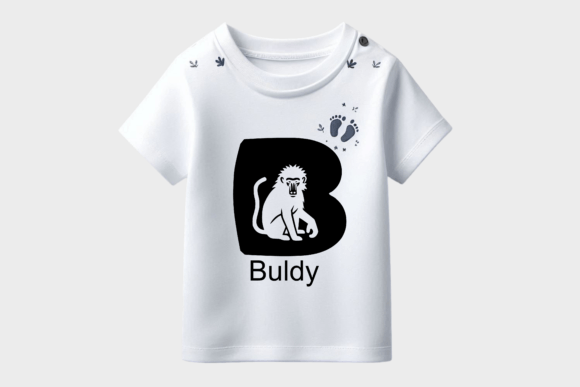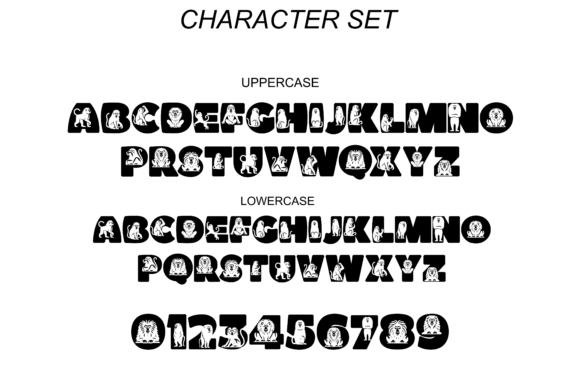
Baboon Font: Unleashing the Magic of Meticulously Carved Characters
Welcome to the enchanting realm of typography, where creativity knows no bounds. In this world, a unique gem has emerged to captivate designers and crafters alike – the Baboon Font. This extraordinary typographic treasure embodies the limitless possibilities of artistic expression, infusing projects with an irresistible allure. Get ready to immerse yourself in the dynamic energy of Baboon Font, a masterful blend of precision and unpredictability.
The Art of Baboon Font
Baboon Font is more than just a collection of characters; it’s an experience. Each letter, meticulously carved with attention to detail, tells a story of its own. The font’s design is a harmonious fusion of exact precision and enchanting unpredictability, making it a true standout in the world of typography. The Baboon Font’s unique charm lies in its ability to balance structure and creativity, resulting in a captivating visual language that engages and inspires.
Unleashing Creative Potential
As a designer or crafter, you’re constantly seeking innovative ways to elevate your projects. Baboon Font offers a fresh perspective, empowering you to push the boundaries of artistic expression. With its dynamic energy and captivating allure, this font is perfect for projects that demand attention, creativity, and a touch of magic. Whether you’re working on a logo, branding, packaging, or editorial design, Baboon Font is sure to leave a lasting impression.
Key Features of Baboon Font
- Unique Character Design: Each character in Baboon Font is meticulously carved, showcasing a level of detail and craftsmanship that’s hard to find in other fonts.
- Dynamic Energy: The font’s harmonious fusion of precision and unpredictability creates a captivating visual language that’s sure to engage your audience.
- Versatility: Baboon Font is suitable for a wide range of projects, from logos and branding to packaging and editorial design.
- Artistic Freedom: With Baboon Font, you can experiment with different styles, arrangements, and creative expressions, giving you the freedom to bring your unique vision to life.
Tips for Using Baboon Font Effectively
To get the most out of Baboon Font, consider the following tips:
- Experiment with Different Sizes: Baboon Font’s unique character design shines at various sizes, so don’t be afraid to experiment and find the perfect fit for your project.
- Play with Color: The font’s dynamic energy is amplified by bold, vibrant colors. Try pairing Baboon Font with contrasting colors to create a striking visual effect.
- Mix and Match: Combine Baboon Font with other typography elements to create a visually appealing hierarchy and add depth to your design.
Inspiration from the World of Typography
The world of typography is full of inspiration, and Baboon Font is no exception. This font draws inspiration from various sources, including:
- Ancient Scripts: The intricate details and craftsmanship of ancient scripts have influenced the design of Baboon Font.
- Nature: The organic, flowing lines of nature have inspired the font’s dynamic energy and sense of movement.
- Artistic Expression: Baboon Font’s unique character design reflects the creative freedom and experimentation that artists and designers strive for.
In conclusion, Baboon Font is a typographic gem that offers designers and crafters a unique opportunity to elevate their projects with a touch of magic. Its dynamic energy, captivating allure, and meticulous character design make it an excellent choice for those seeking to push the boundaries of artistic expression. With Baboon Font, you can unlock a world of creative possibility and bring your inventive undertakings to life in a way that’s both captivating and unforgettable.